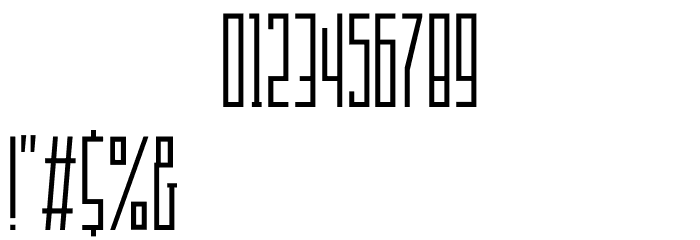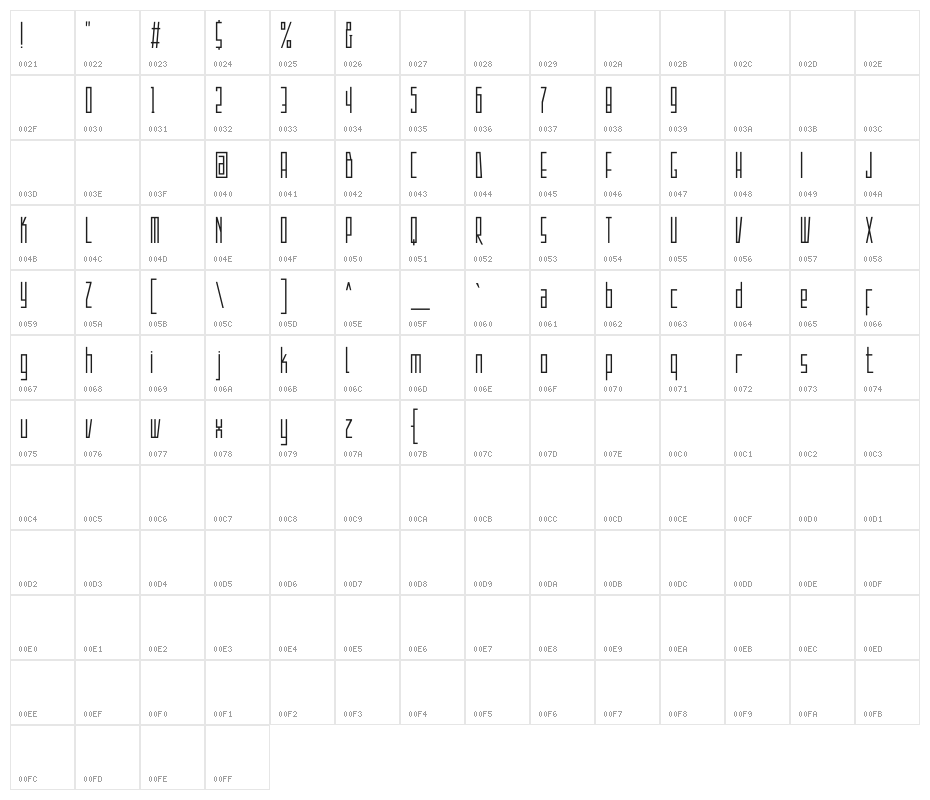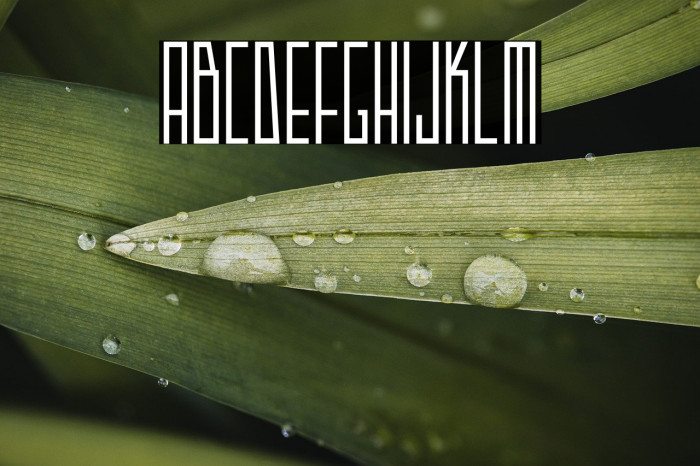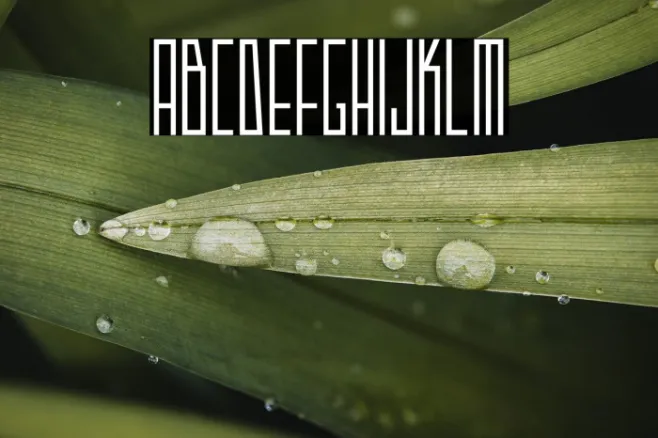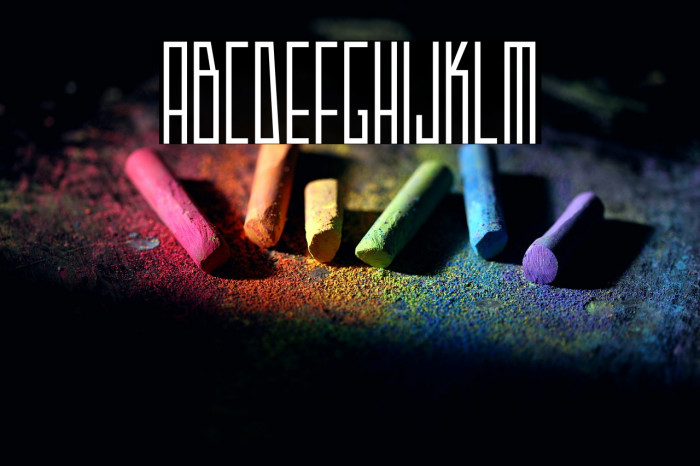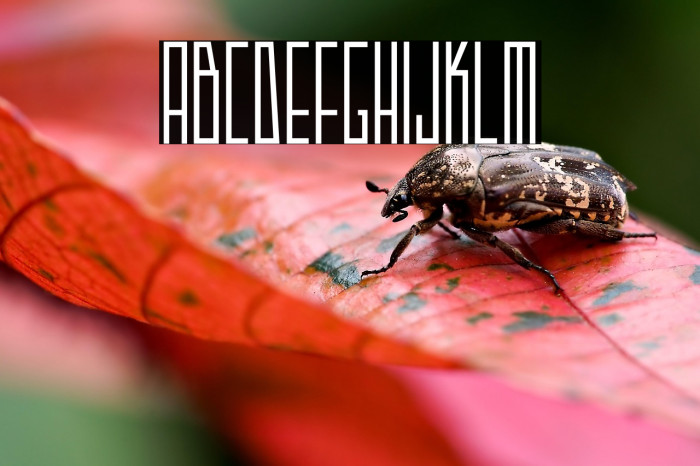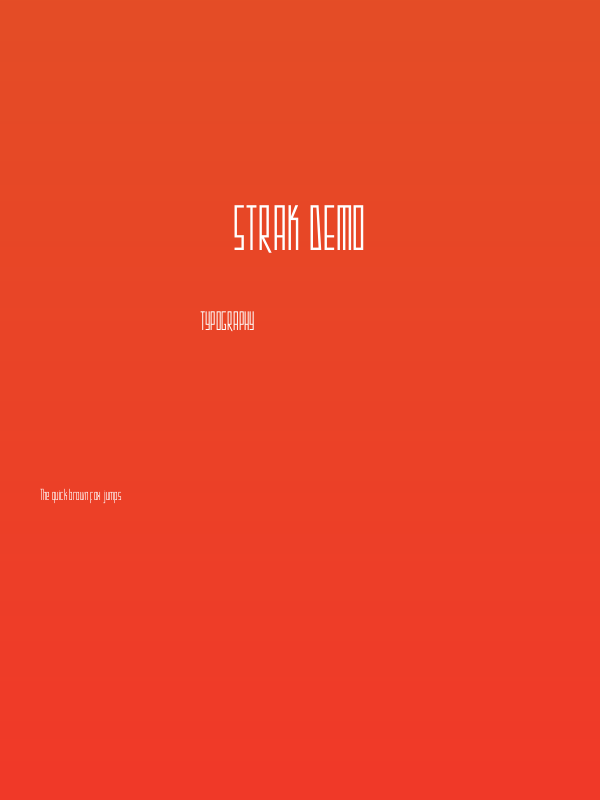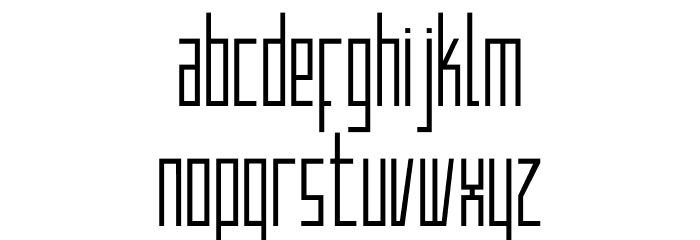
Strak Demo Font
Strak Demo Description
This font features a geometric and modern design with a distinctly tall and narrow structure. The characters are constructed with straight lines and sharp angles, giving it a futuristic and technical appearance. The uppercase and lowercase letters maintain a consistent height, enhancing its uniform look. The numerals and special characters follow the same design principles, ensuring a cohesive style throughout. The font's clean lines and minimalistic approach make it suitable for contemporary design projects.
| Proposed Projects | Ideal for technology branding, modern posters, futuristic interfaces, and minimalist graphic designs. |